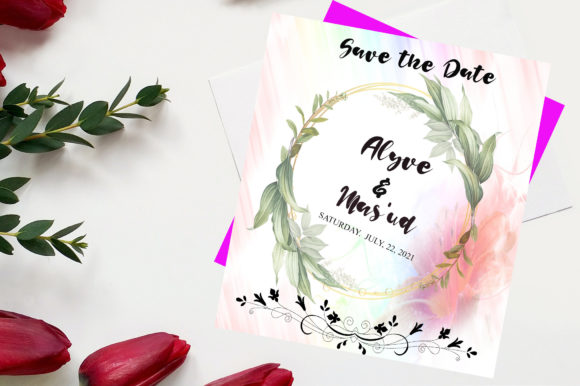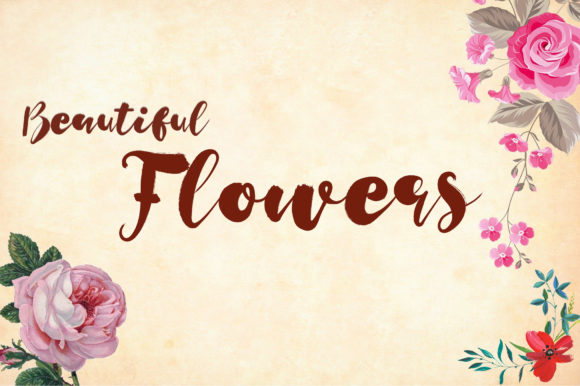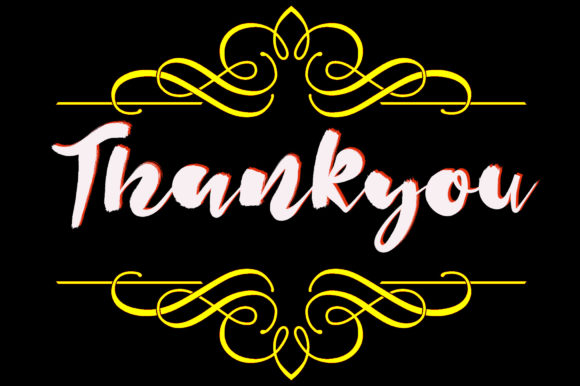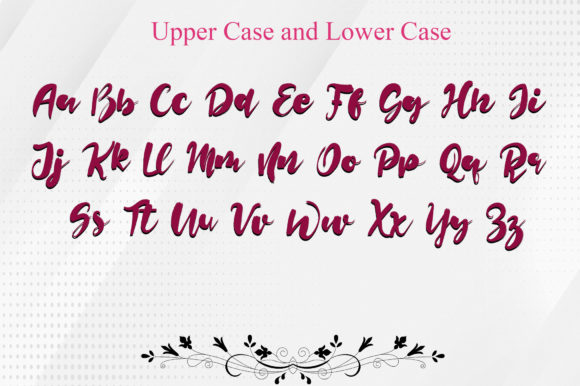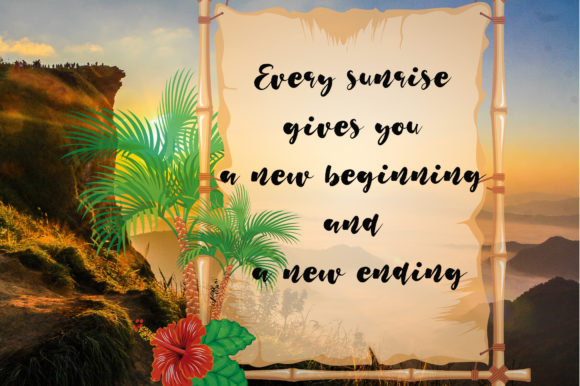
Hello Love Font
Hello Love is a chic, refined script font that emanates sophistication and elegance. Its stylish alternates and ligatures make this font the perfect match for any project.